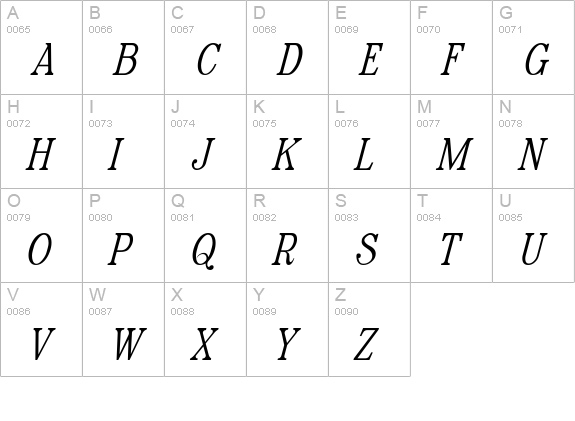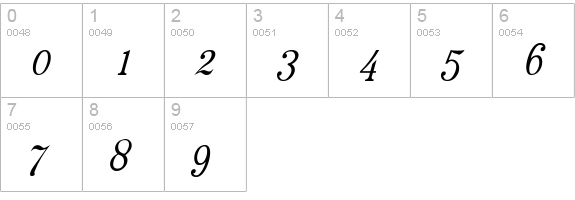
RataczakCond Italic Font Details
RataczakCond Italic is a distinctive, italic variant in the RataczakCond typeface family \xE2\x80\x94 well suited to design and typography projects.
RataczakCond Italic font is a stunning typeface that exudes elegance and sophistication. Its sleek and slanted letterforms add a touch of modernity to any design project. With its unique style and graceful curves, RataczakCond Italic font is perfect for creating eye-catching headlines, stylish logos, and captivating branding materials. This font's italicized variation adds a sense of dynamism and movement, making it ideal for conveying a sense of energy and excitement in your designs. Whether you're designing for print or digital media, RataczakCond Italic font will effortlessly elevate your visuals to new levels of creativity. One of the best aspects of RataczakCond Italic font is that it is available to download for free at FontsMarket.com. This means that designers, hobbyists, and creatives of all kinds can easily access this incredible font without any cost. Its availability as a free download makes it an excellent choice for those with budget constraints or those who simply appreciate the value of high-quality design resources. Don't miss out on the opportunity to enhance your designs with the beauty and versatility of RataczakCond Italic font. Download it for free at FontsMarket.com and unlock a world of creative possibilities.